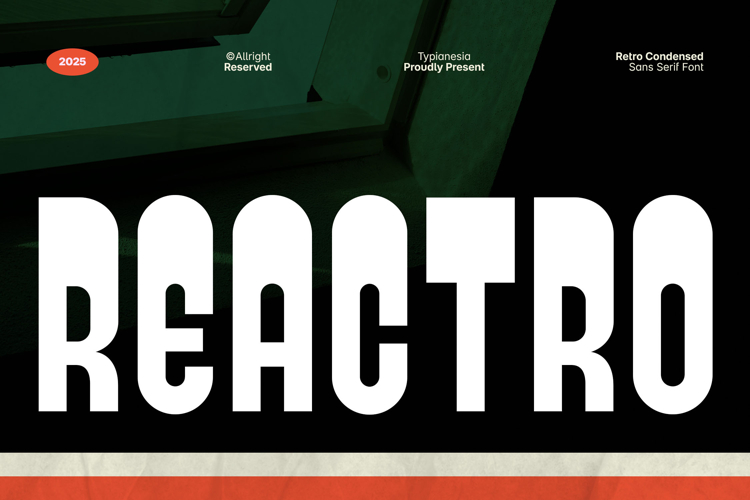
Reactro - Bold Retro Condensed / Tall Font
Reactro - Bold Retro Condensed / Tall Font - Modern Sans Serif Typeface
Reactro is a bold, display sans-serif font with a distinct retro feel, designed for projects that demand character and style. This typeface blends vintage aesthetics with modern design, with its solid, condensed shapes, Reactro is perfect for logos, product packaging, posters, signage, advertising, cafe branding, apparel design, t-shirt designs and any projects that need a touch of unique and memorable look. Its strong and legitimate characteristics make it an ideal choice for headlines and posters that need to stand out. Use Reactro to bring a touch of nostalgia to your contemporary designs.